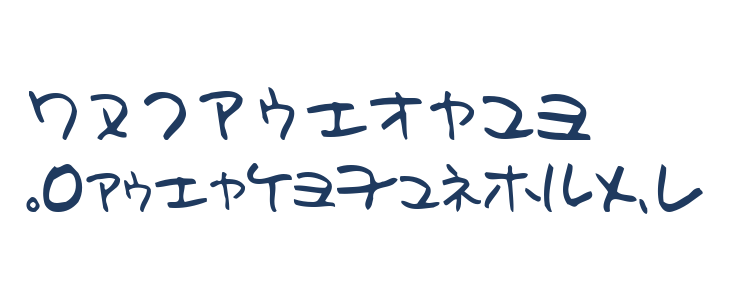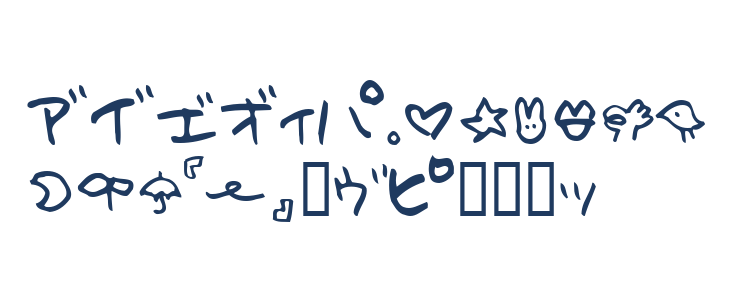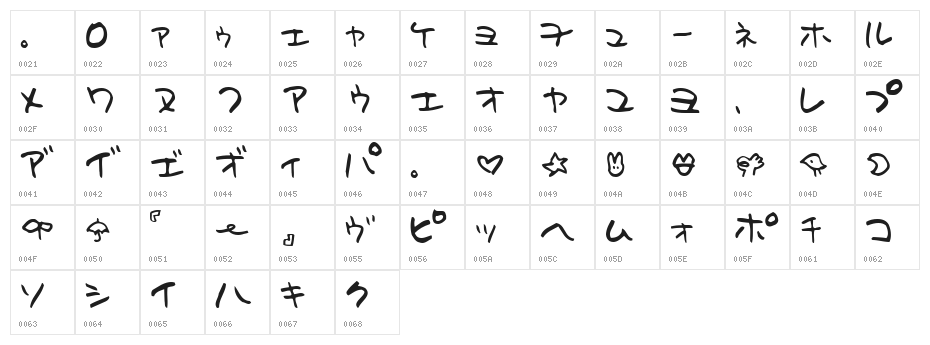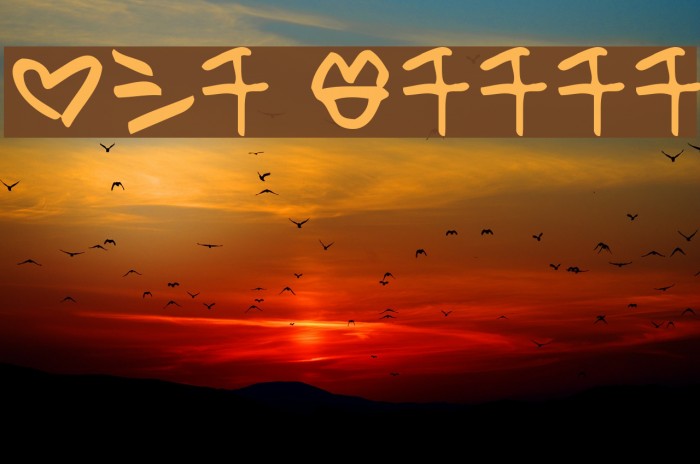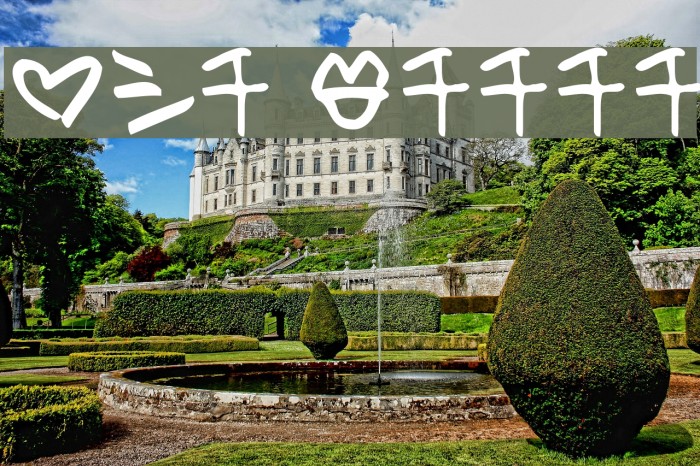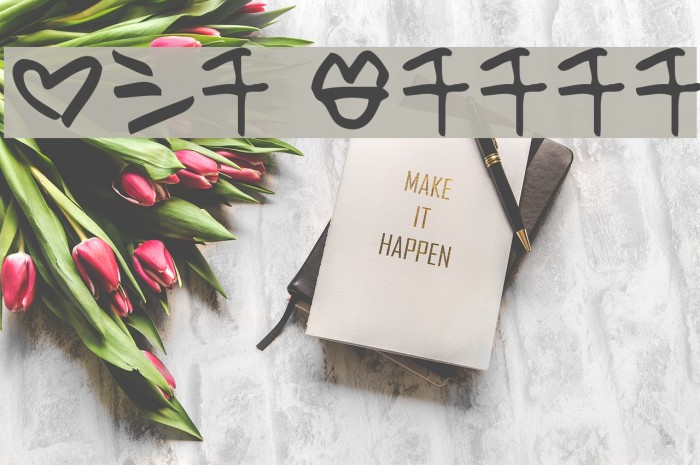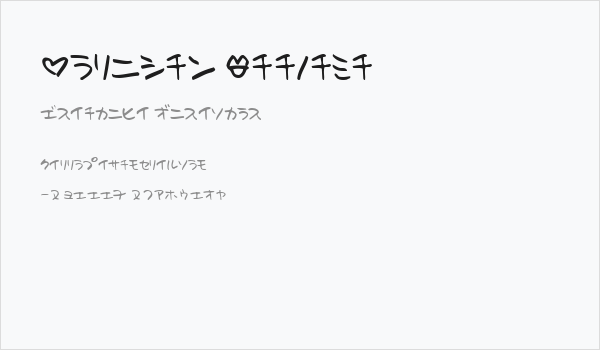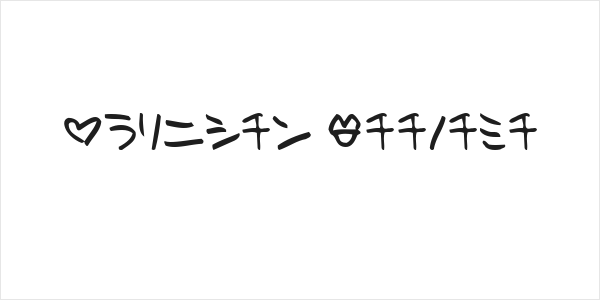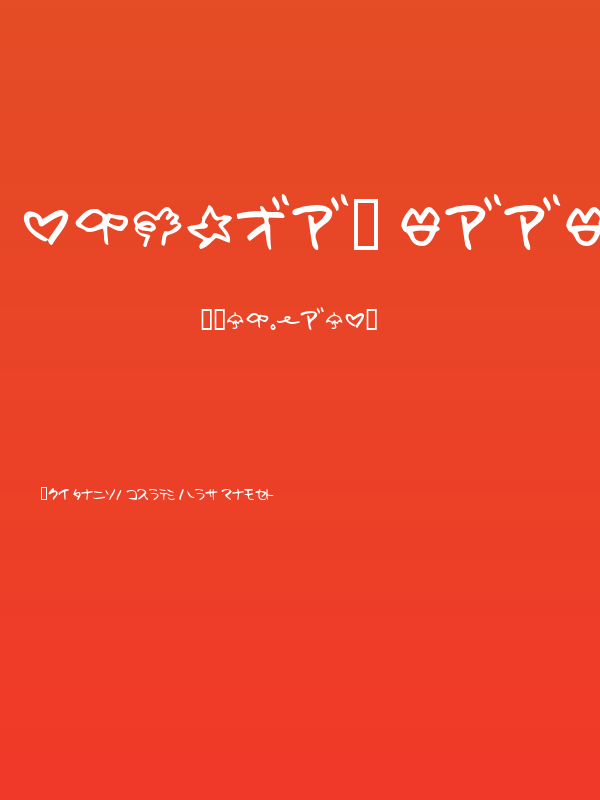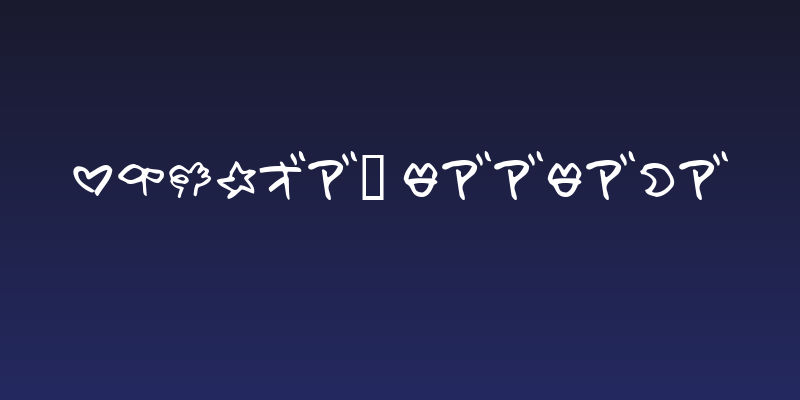
Holiday Kaakana Font
Holiday Kaakana Description
This font features a playful and whimsical style, characterized by its hand-drawn appearance and irregular, flowing lines. The characters exhibit a casual, informal feel, with a mix of rounded and angular shapes that add to its charm. The strokes vary in thickness, giving it a dynamic and lively look. This font includes a variety of unique symbols and characters, enhancing its creative and artistic appeal. It's ideal for projects that require a touch of fun and creativity, such as children's books, playful branding, or artistic posters.
Overall StylePlayful, Artistic
Use CaseHeadlines, Creative projects, Artistic displays
Proposed ProjectsChildren's books, playful branding, artistic posters, creative invitations.